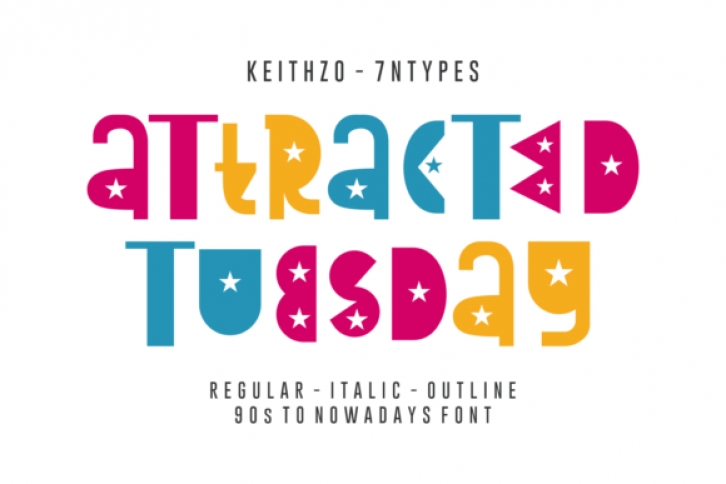
The Attracted Tuesday is an amazing display font. Its characters have a fun and playful style and will add an absolutely unique touch to your designs.
It comes in a regular, italic, and outline version which can be combined perfectly and give you the opportunity to create multiple unique designs with just this one download.